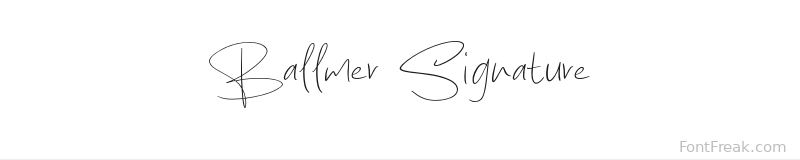
Ballmer Signature
About Ballmer Signature
The Ballmer Signature font by MJType is a beautifully crafted handwritten typeface that exudes a personal touch and warmth. This script font features fluid strokes and a natural flow, making it ideal for designs that aim to convey authenticity and individuality. The stroke weight varies subtly, creating a sense of depth and character without overwhelming the viewer. The letterforms exhibit graceful curves and a slightly informal style, which gives it a friendly and inviting appearance. The spacing is well-balanced, allowing for easy readability while maintaining the charm of a handwritten script.
This versatile font is perfect for a variety of applications. It shines in wedding invitations, where its elegant design adds a romantic flair. For restaurant menus, the Ballmer Signature font can create an inviting atmosphere, enhancing the overall dining experience. Additionally, it works wonderfully for branding projects, particularly for small businesses looking to convey a personal touch through their logos and marketing materials. Content creators will also find this font appealing for social media graphics and blog headers, as it adds a unique, personal feel.
What sets the Ballmer Signature font apart is its ability to blend elegance with a casual, approachable vibe. Whether you’re crafting a heartfelt invitation or designing eye-catching promotional materials, this font captures attention and fosters connection, making it a valuable addition to any designer's toolkit. For those interested, the Ballmer Signature font free download is readily available, inviting you to explore its charm and versatility.